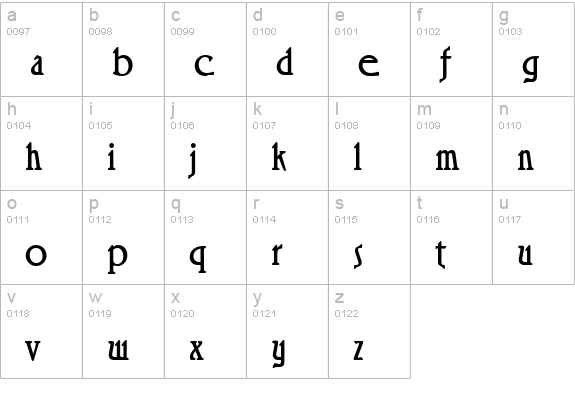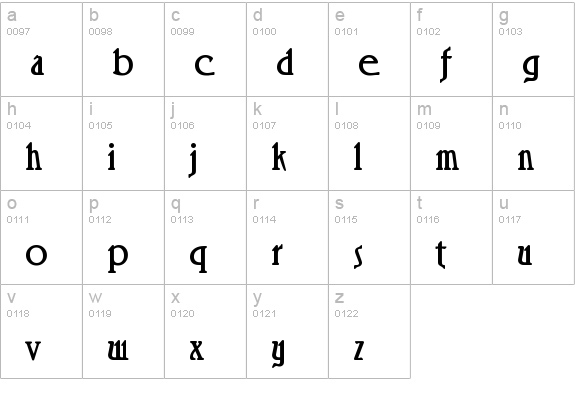
Rimini-Regular Font Details
Rimini-Regular is the standard, neutral variant in the Rimini typeface family \xE2\x80\x94 well suited to general body text, paragraphs, and standard typographic work.
Rimini-Regular is a timeless and versatile font that exudes elegance and sophistication. With its clean lines and classic design, this font is perfect for a wide range of projects, from branding to editorial design. The balanced proportions and smooth curves of Rimini-Regular make it highly legible and easy on the eyes, ensuring a pleasant reading experience. The best part? Rimini-Regular is available for free download at FontsMarket.com. This means you can add this stunning font to your collection without breaking the bank. Whether you're a professional designer looking to expand your font library or a hobbyist looking for a high-quality typeface for your next project, Rimini-Regular is a fantastic choice that won't cost you a penny. Download it today and elevate your designs with this beautiful and versatile font.